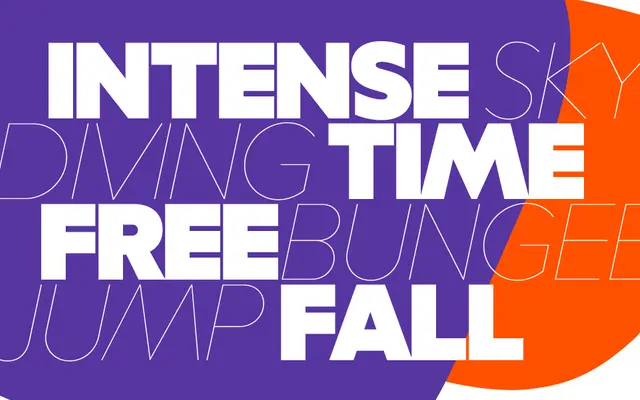
Elevator
XYZ Type · Jesse Ragan
A geometric sans by Jesse Ragan rooted in the prefabricated Block and Futura signage letterforms of 1950s American architecture, with a variable optical size axis spanning text to Huge.
Originating from a commission to replicate existing signage for a New York City skyscraper renovation, Elevator and its companion Escalator draw from mid-century prefabricated letterforms while pushing the distinction between their two source styles further apart. Both families are delivered as variable fonts with a weight axis and an optical size axis that adjusts structure, tapering and spacing from small text sizes up through the aptly named Huge. The typefaces are currently in active development under an early access licence, with design refinement and expanded symbols still to come.
Elevator draws from prefabricated geometric letterforms of the 1950s, specifically the Block and Futura styles common in architectural signage, placing it firmly within the geometric sans tradition.